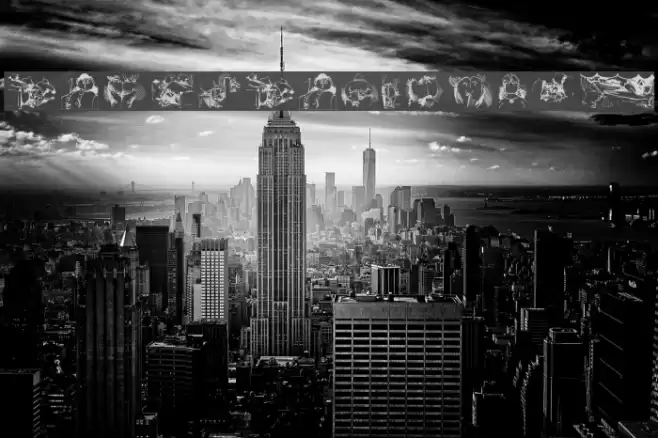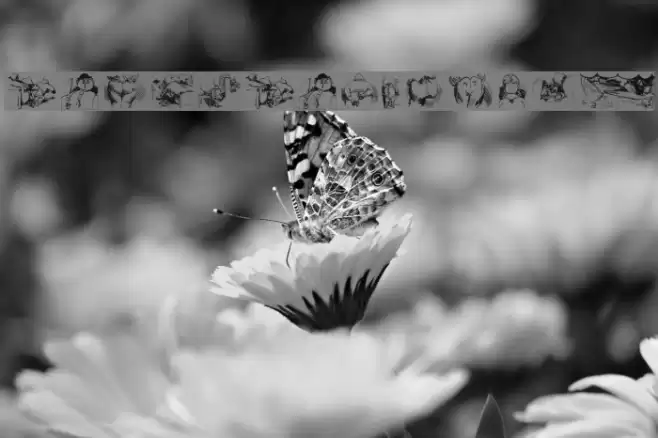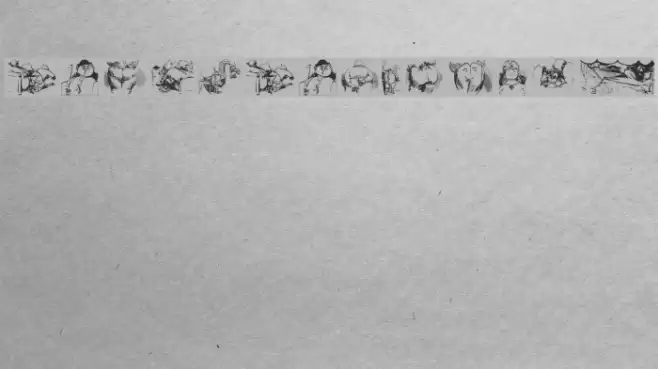
BuschButGerman Font
BuschButGerman Description
This font is a whimsical and illustrative design, featuring characters that are creatively integrated with playful and detailed illustrations. Each letter is uniquely crafted with elements that resemble cartoon-like figures and scenes, giving it a highly decorative and artistic appearance. The style is reminiscent of classic comic illustrations, with intricate line work and shading that add depth and character to each glyph. This font is not suitable for body text due to its complexity but serves as an eye-catching display typeface.
A whimsical, illustrative font with cartoon-like characters and scenes from Uncategorized fonts.
- Proposed Projects: Ideal for children's books, comic strips, playful posters, and creative invitations.